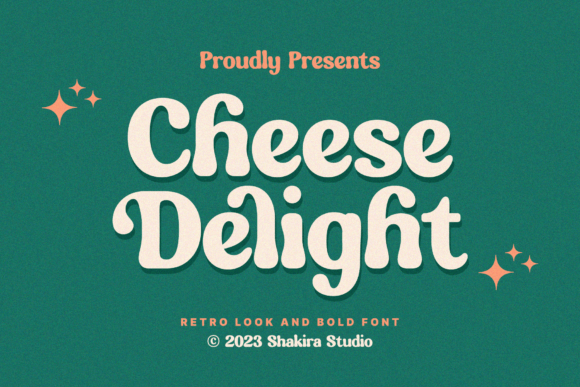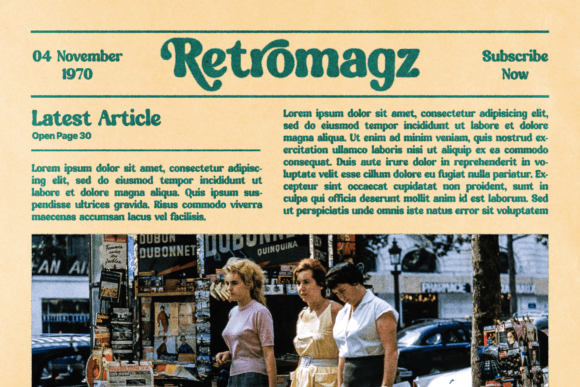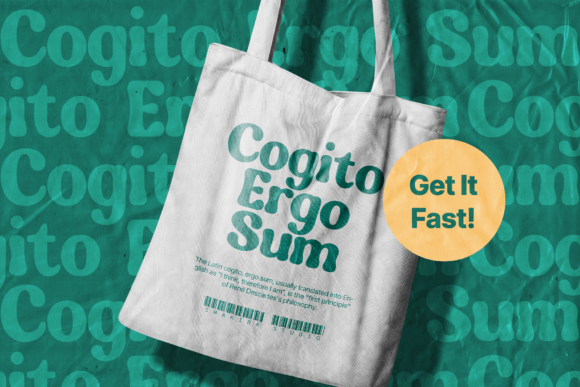
Cheese Delight Font
Introducing Cheese Delight – A Retro Serif Font with Unparalleled Elegance!
What sets Cheese Delight apart are its uniquely crafted special characters, each a work of art that adds an extra layer of beauty and distinction to your designs. Whether you’re working on a vintage-inspired logo, elegant invitations, or captivating posters, Cheese Delight infuses your projects with a touch of sophistication that’s currently dominating .